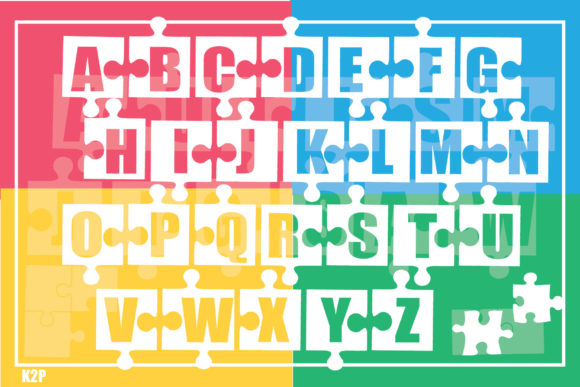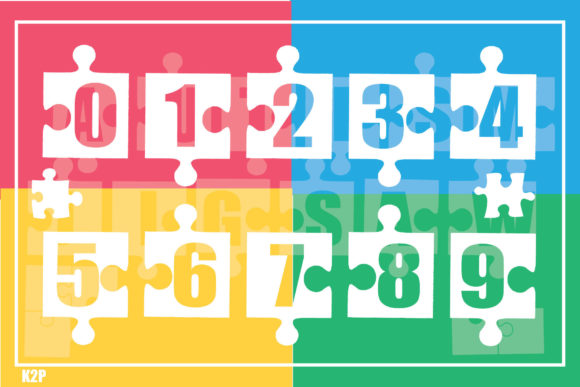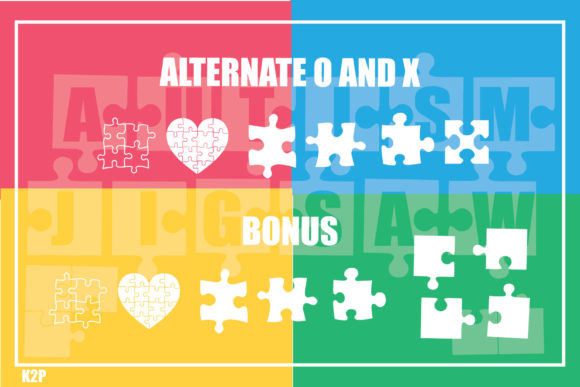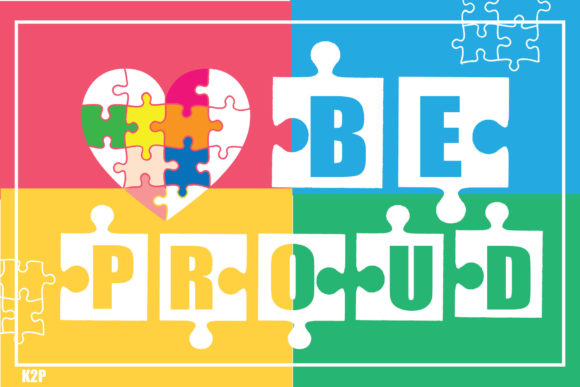
Introducing the Autism Jigsaw Font: A Unique Decorative Font for Autism Awareness and Support
The Autism Jigsaw Font is a game-changer for designers and crafters looking to create visually stunning projects that support individuals with autism. This thick lettered and incredibly unique decorative font is specifically designed to make a statement, while also promoting awareness and acceptance.
What Makes the Autism Jigsaw Font So Special?
The Autism Jigsaw Font is more than just a font – it’s a tool for creative expression and a symbol of support for individuals with autism. Its distinctive jigsaw-inspired design makes it perfect for projects that aim to raise awareness about autism, promote acceptance, and provide support to those affected.
Whether you’re a designer, crafter, or simply someone who wants to make a difference, the Autism Jigsaw Font is an excellent choice for your next project. Its versatility and uniqueness make it suitable for a wide range of applications, from posters and flyers to social media graphics and merchandise.
One of the standout features of the Autism Jigsaw Font is its PUA (Private Use Area) encoding. This means that you can access all of the glyphs and swashes with ease, giving you complete creative control over your project.
With PUA encoding, you can:
• Access a wide range of glyphs and swashes to add visual interest to your project
• Easily customize your text to fit your design needs
• Create unique and eye-catching graphics that stand out from the crowd
Design Ideas for the Autism Jigsaw Font
The Autism Jigsaw Font is incredibly versatile, making it perfect for a variety of design projects. Here are some ideas to get you started:
• Autism Awareness Posters: Create eye-catching posters that promote awareness and acceptance of autism. Use the Autism Jigsaw Font to add a bold and impactful touch to your design.
• Social Media Graphics: Use the Autism Jigsaw Font to create engaging social media graphics that spread awareness and support for autism.
• Merchandise: Design t-shirts, mugs, and other merchandise that showcases your support for autism awareness and acceptance.
• Support Group Materials: Create materials for autism support groups, such as flyers, brochures, and presentations, using the Autism Jigsaw Font.
Why Choose the Autism Jigsaw Font?
By choosing the Autism Jigsaw Font, you’re not only getting a unique and decorative font, but also a tool that can help make a difference in the lives of individuals with autism.
Here are just a few reasons why you should choose the Autism Jigsaw Font:
• Unique Design: The Autism Jigsaw Font has a distinctive jigsaw-inspired design that’s unlike any other font.
• PUA Encoding: With PUA encoding, you have easy access to all of the glyphs and swashes, giving you complete creative control.
• Versatility: The Autism Jigsaw Font is suitable for a wide range of design projects, from posters and flyers to social media graphics and merchandise.
• Support for Autism: By using the Autism Jigsaw Font, you’re showing your support for autism awareness and acceptance.
The Autism Jigsaw Font is a powerful tool for designers and crafters who want to create visually stunning projects that support individuals with autism. Its unique design, PUA encoding, and versatility make it the perfect choice for a wide range of applications.